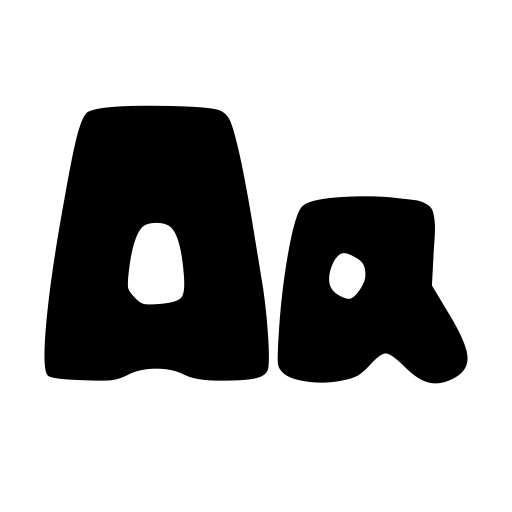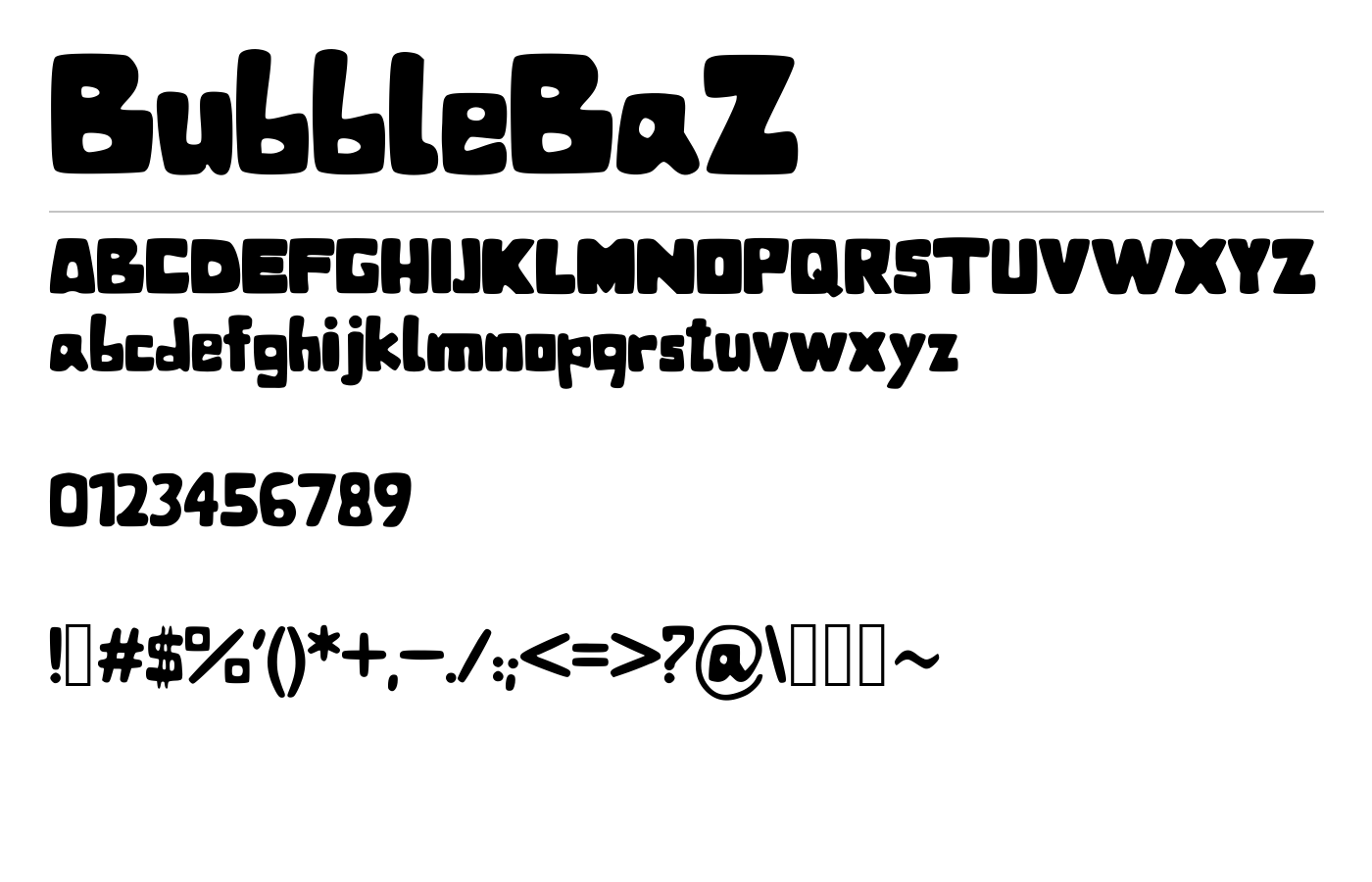
BubbleBaZ is a bold, playful sans serif font with chunky, rounded letterforms that give it a bubbly, friendly personality. Its irregular shapes and casual style make it perfect for fun, informal designs, such as children's books, party invitations, or lively logos. This font brings a sense of warmth and approachability, making any project feel cheerful and engaging.
BubbleBaZ Font
About BubbleBaZ Font